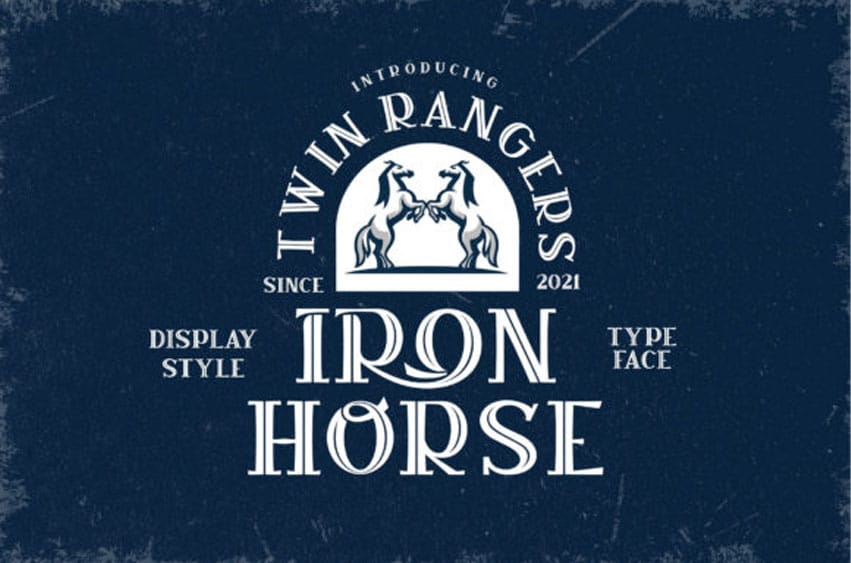
Iron Horse Vintage Font is a cool, bold, and vintage-style display font. It is PUA encoded, which means you can access all of the glyphs and swashes with ease!
This original look will appeal to a wide range of crafty ideas, from letterheads and titles to stationery.